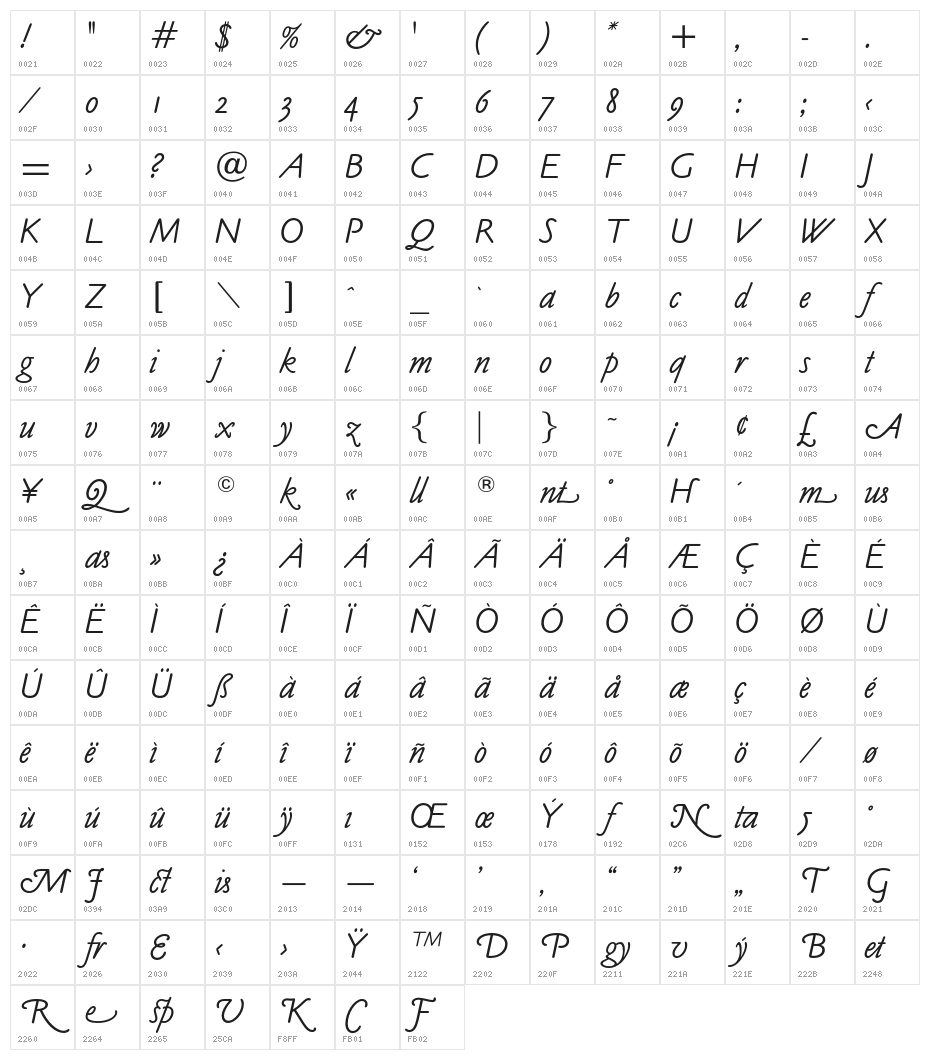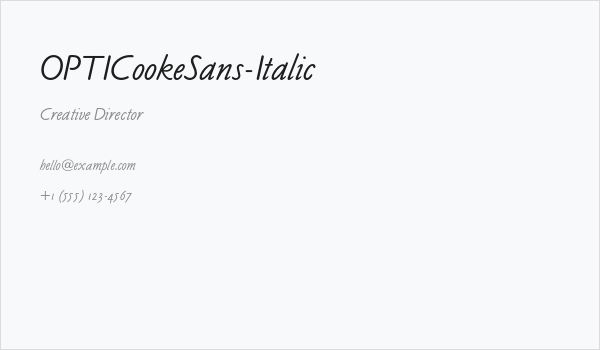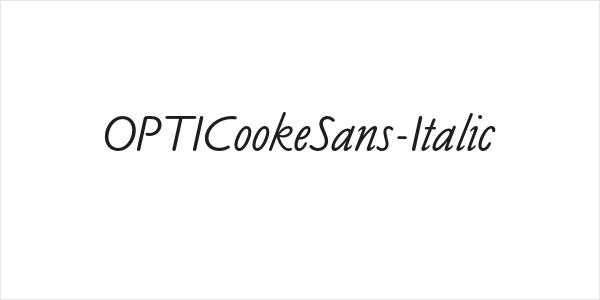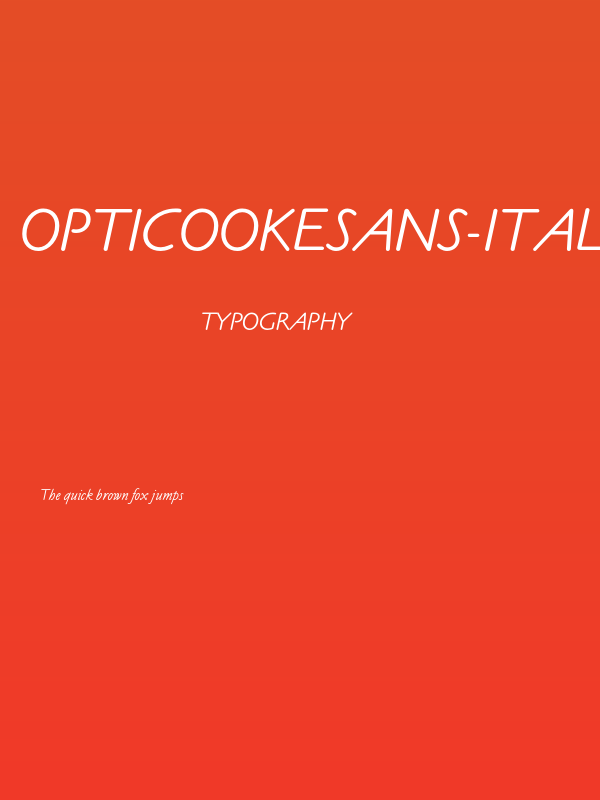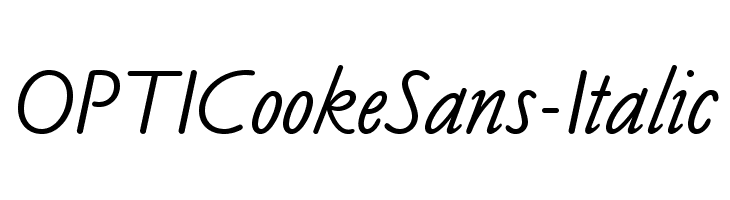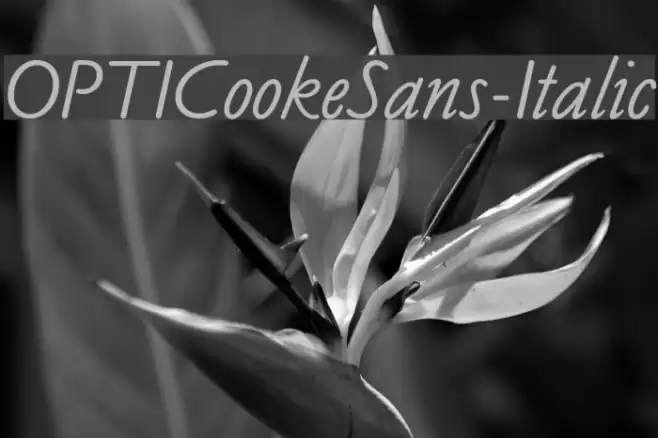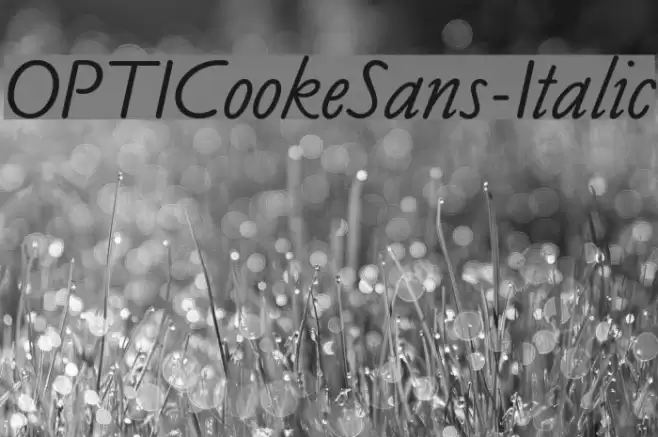
OPTICookeSans-Italic Font
OPTICookeSans-Italic Description
This font features a sleek, italicized design with a modern flair. The characters are elegantly slanted, providing a sense of motion and fluidity. The uppercase letters are tall and slightly narrow, while the lowercase letters maintain a consistent flow with gentle curves and smooth transitions. The numerals are distinct and clear, complementing the overall style. Special characters are well-integrated, maintaining the font's cohesive look. The font's design is both stylish and functional, making it suitable for a variety of applications.
| Use Case | Headlines, Logos, Invitations |
| Proposed Projects | Ideal for branding, fashion magazines, elegant invitations, and modern web design. |